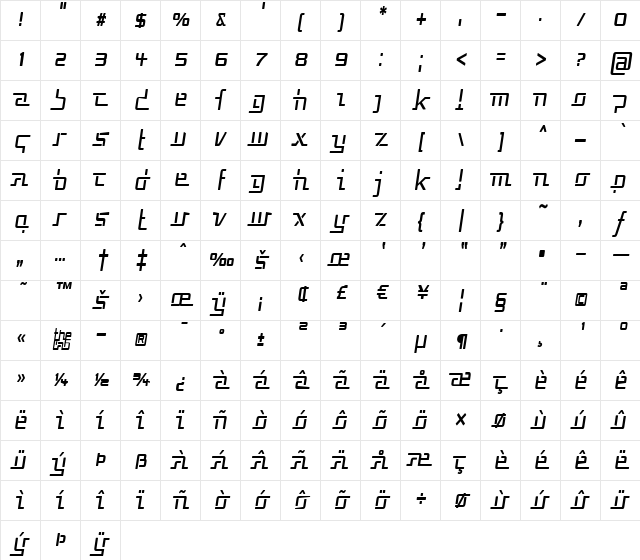
Republika V Cnd Italic
Designer: Apostrophe
Design Context for Republika V Cnd
Republika V Cnd is a composed and adaptable typeface that performs quietly and consistently across a wide range of design contexts. The slanted form adds forward momentum and visual energy.
Pro Tip: Use Republika V Cnd for emphasis, pull quotes, and subheadings where its slanted energy can add rhythm to the layout.